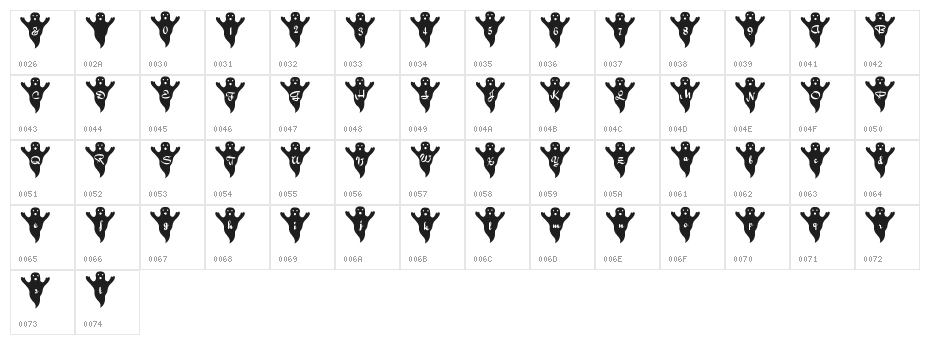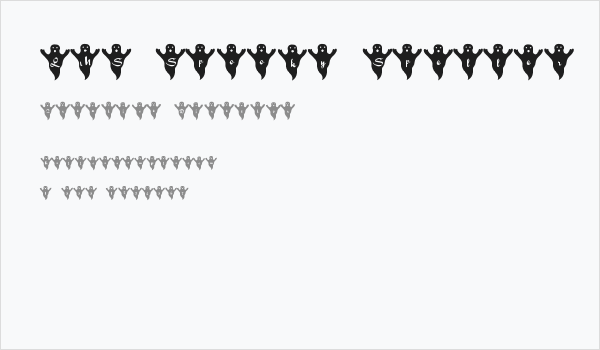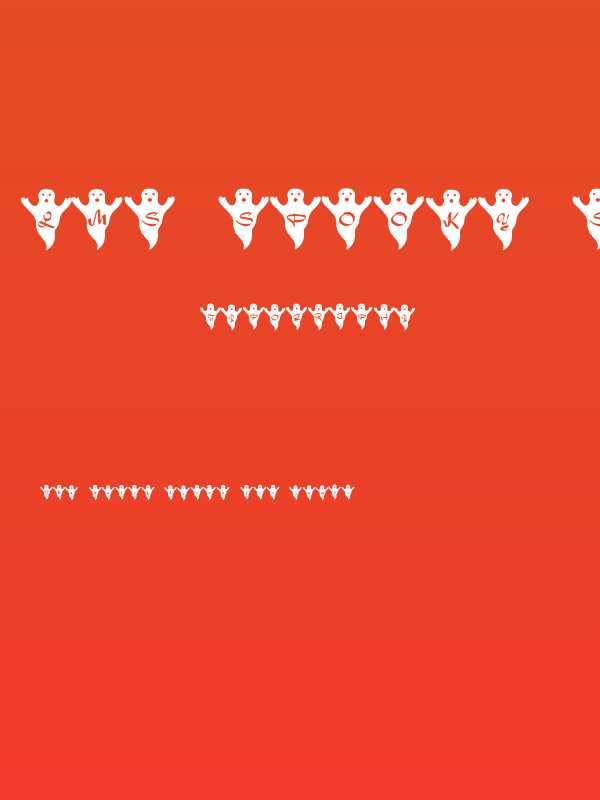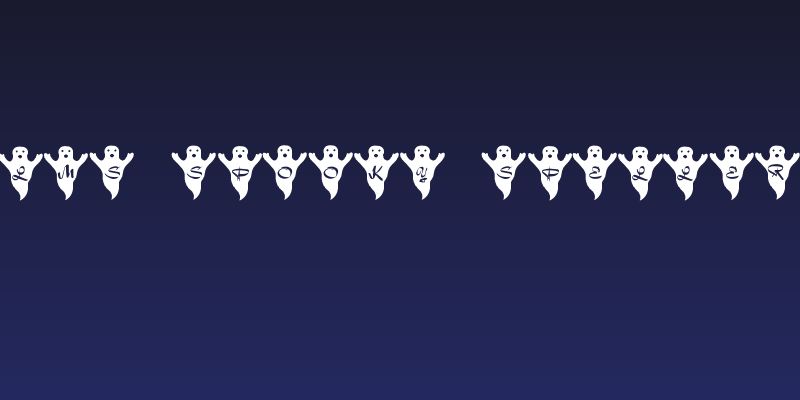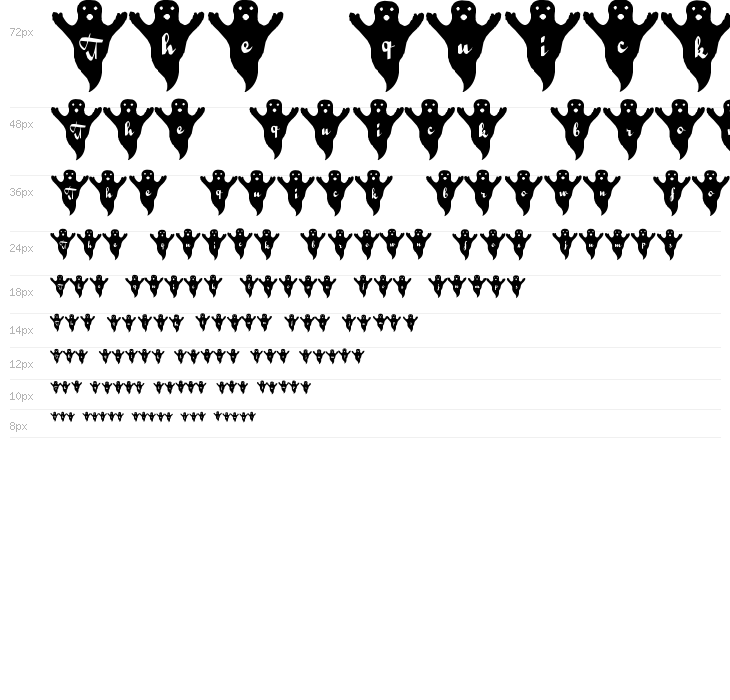
LMS Spooky Speller Font
LMS Spooky Speller Description
This playful and thematic font features characters embedded within ghostly silhouettes, creating a whimsical and spooky aesthetic. Each letter and number is cleverly integrated into the shape of a ghost, making it ideal for Halloween-themed designs. The font maintains a consistent style across uppercase, lowercase, and numeric characters, with special characters also following the ghost motif. The design is both decorative and legible, ensuring that the text remains clear while adding a fun, eerie touch to any project.
| Proposed Projects | Ideal for Halloween invitations, party decorations, themed posters, and children's books. |